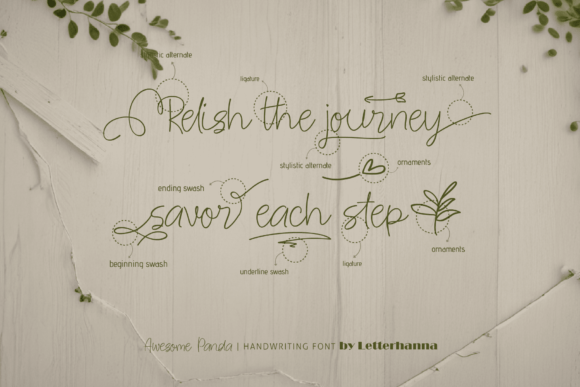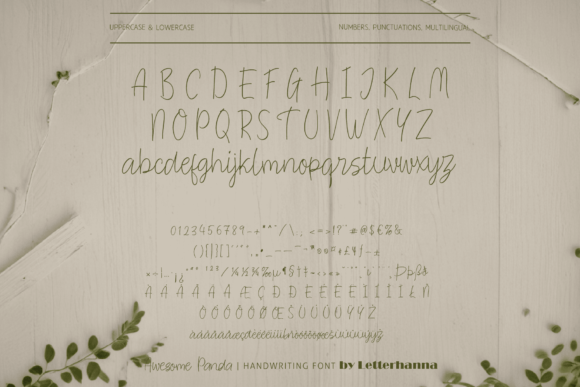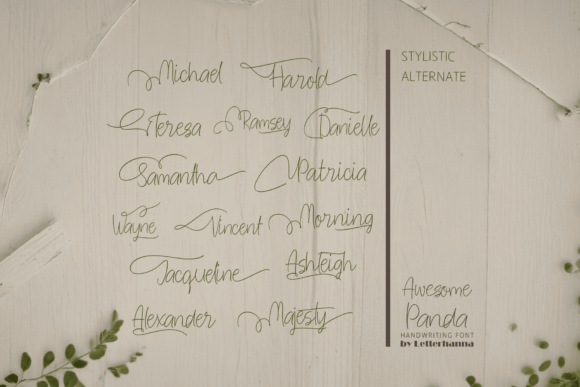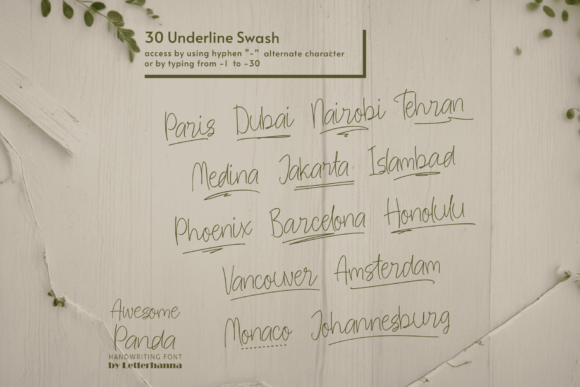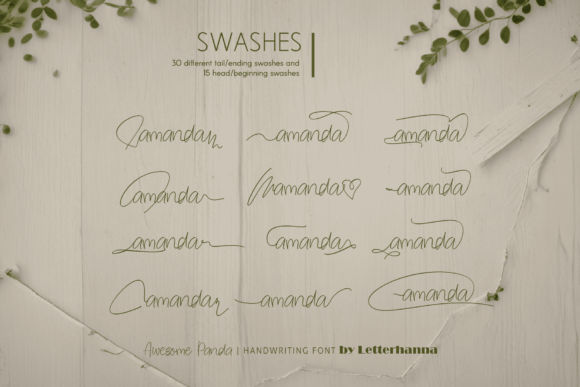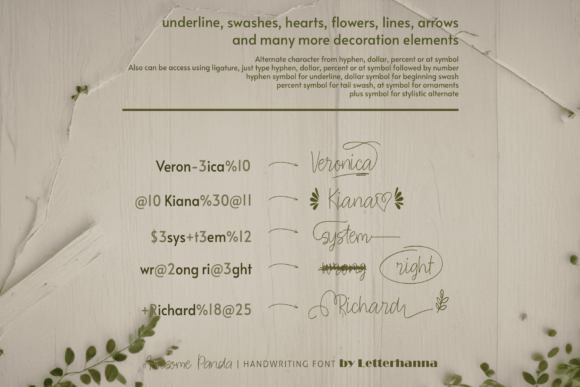
Get Ready to Fall in Love with Awesome Panda Font
Have you ever sat down with a blank page and a pen, waiting for inspiration to strike? That’s exactly what happened to us when we first laid eyes on the Awesome Panda Font. The moment we saw its adorable, handwritten script, we knew we had to share it with the world. And now, we’re thrilled to introduce this brand new, must-have font to all the designers out there!
Awesome Panda Font is more than just a pretty face – it’s a versatile and playful typeface that’s bursting with cuteness. Whether you’re creating invitations, greeting cards, or social media graphics, this font is sure to add a touch of whimsy and charm to your designs. With its treasure trove of stylistic alternates, swashes, and ligatures, Awesome Panda Font is the perfect companion for all your handwritten design adventures.
Awesome Panda Font Key Features
- Font Family: Awesome Panda Font offers a variety of font styles, including bold, italic, and regular.
- Character Set: The font includes a wide range of characters, including Latin, Cyrillic, Greek, and various symbols, making it suitable for multilingual designs.
- Unique Characteristics: The Awesome Panda Font features a playful, cursive design with a mix of rounded and pointed shapes, giving it a unique and eye-catching appearance.
Awesome Panda Font Review
First off, I want to say that the Awesome Panda Font is a real head-turner. ✨ The playful and quirky design is sure to add a touch of whimsy to any project. I particularly love the way the font adapts to different weights and styles, giving it a level of versatility that’s hard to find in other fonts.
Here are some of the things that really work well:
- ✨ Unique and playful design
- ✨ Versatile and adaptable
- ✨ Works well for headings and body text
However, there are a few limitations that might make it less appealing to some designers:
- ⚠️ Limited language support
- ⚠️ May not be suitable for formal or professional projects
- ⚠️ Can be a bit tricky to pair with other fonts
Overall, I think the Awesome Panda Font is a great addition to any designer’s toolkit. While it may not be perfect, its unique charm and versatility make it a great choice for projects that need a little extra personality.
The Awesome Panda Font is perfect for creating playful and whimsical designs. Some common use cases include:
– Children’s book illustrations
– Party invitations
– Digital signage
Alternatives to Awesome Panda Font
The Great Vibes Font is a modern, elegant script font that works well for headings and titles. It is ideal for use in designs that require a touch of sophistication and playfulness. Great Vibes Font has a more refined look compared to Awesome Panda Font, making it suitable for corporate or luxury brands. It also has a wider range of language support.
Pacifico is a beautiful, cursive font that is perfect for designs that require a relaxed and friendly tone. It is ideal for use in beach-themed designs, wedding invitations, and other creative projects. Pacifico has a softer and more casual look compared to Awesome Panda Font, making it suitable for brands that want to convey a sense of calmness and approachability.